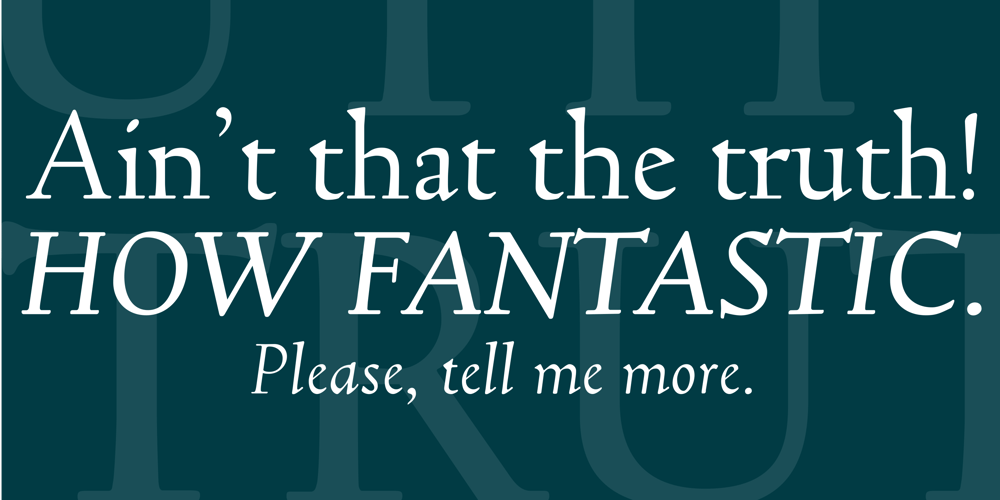
Truesdell
Truesdell font
Truesdell Font Family was designed by Steve Matteson, Frederic W. Goudy and published by Monotype. Truesdell contains 4 styles and family package options. Frederic Goudy drew Truesdell in 1930 and first used it for an article in a quarterly journal for book collectors. Since it was a small family and not promoted, Goudy received few orders for fonts. The original drawings and matrices for the face were lost in the fire that destroyed Goudy’s studio in 1939.The only known examples of Truesdell fonts reside in the extensive collection of typographic material at the Rochester Institute of Technology School of Printing. It was proofs from these fonts that served as the basis for Monotype’s digital revival of the family. Monotype Truesdell was released in March of 1994, just slightly over fifty-five years after fire destroyed Goudy’s original work.Truesdell font field guide including best practices, font pairings and alternatives.